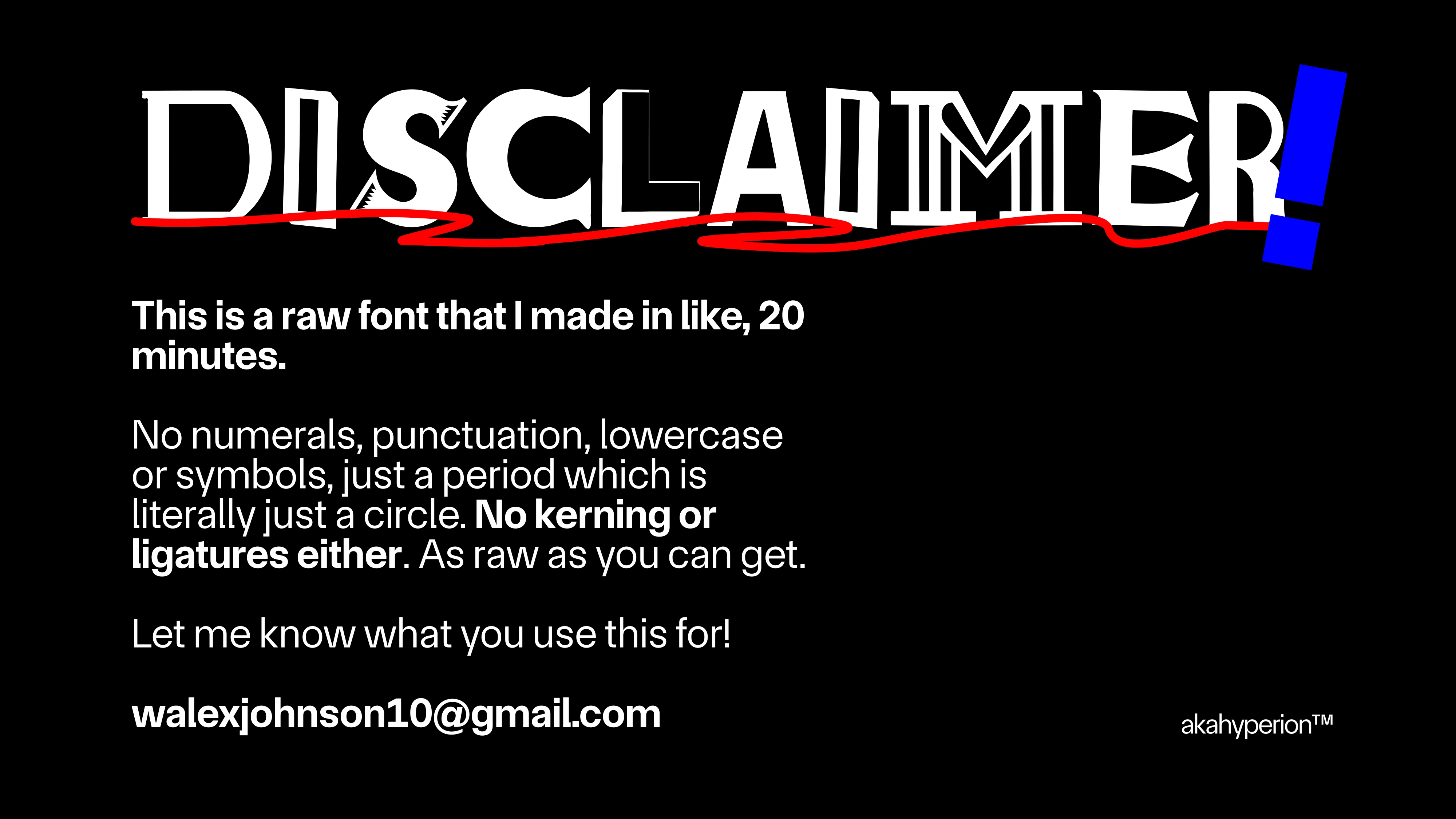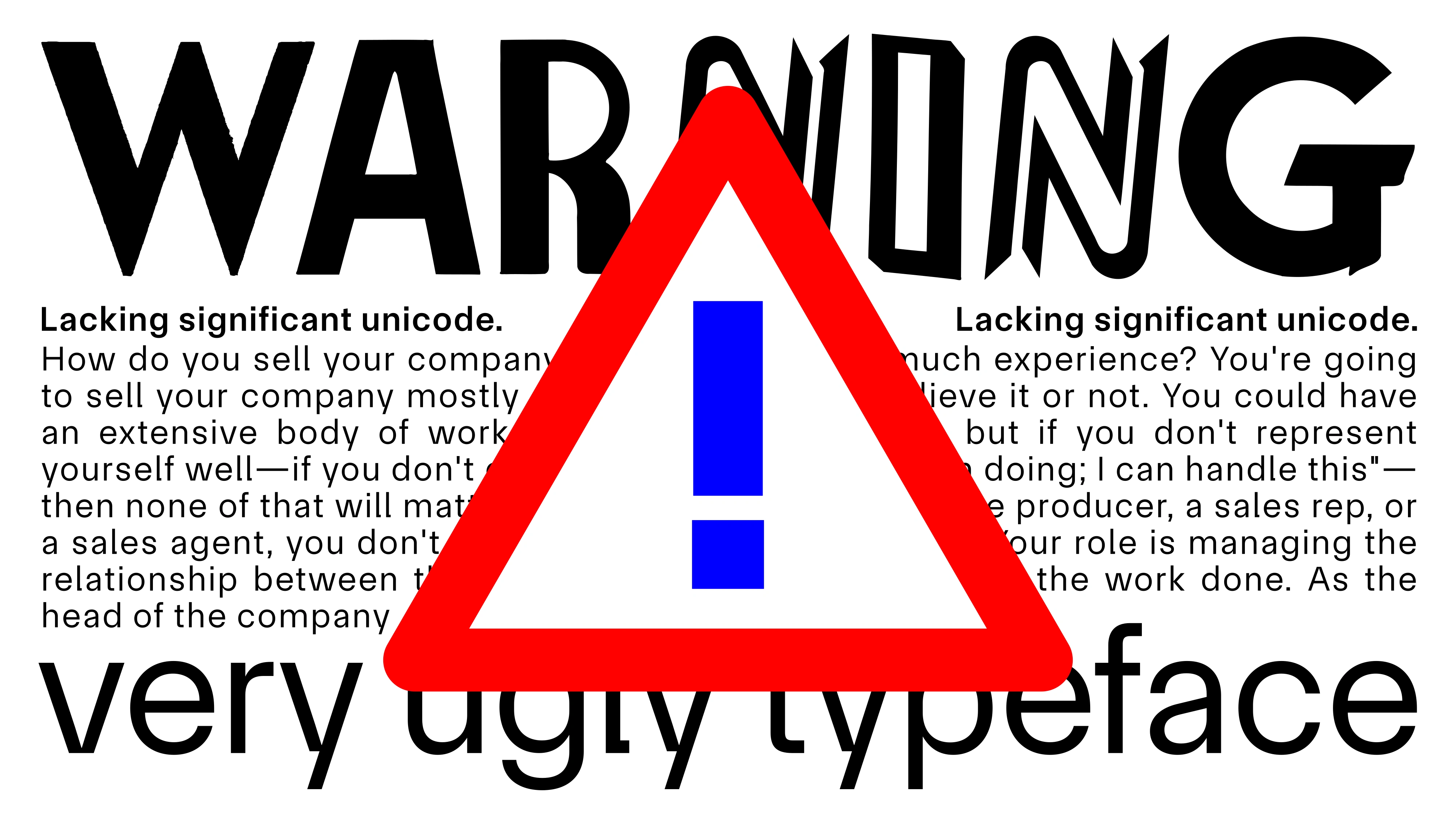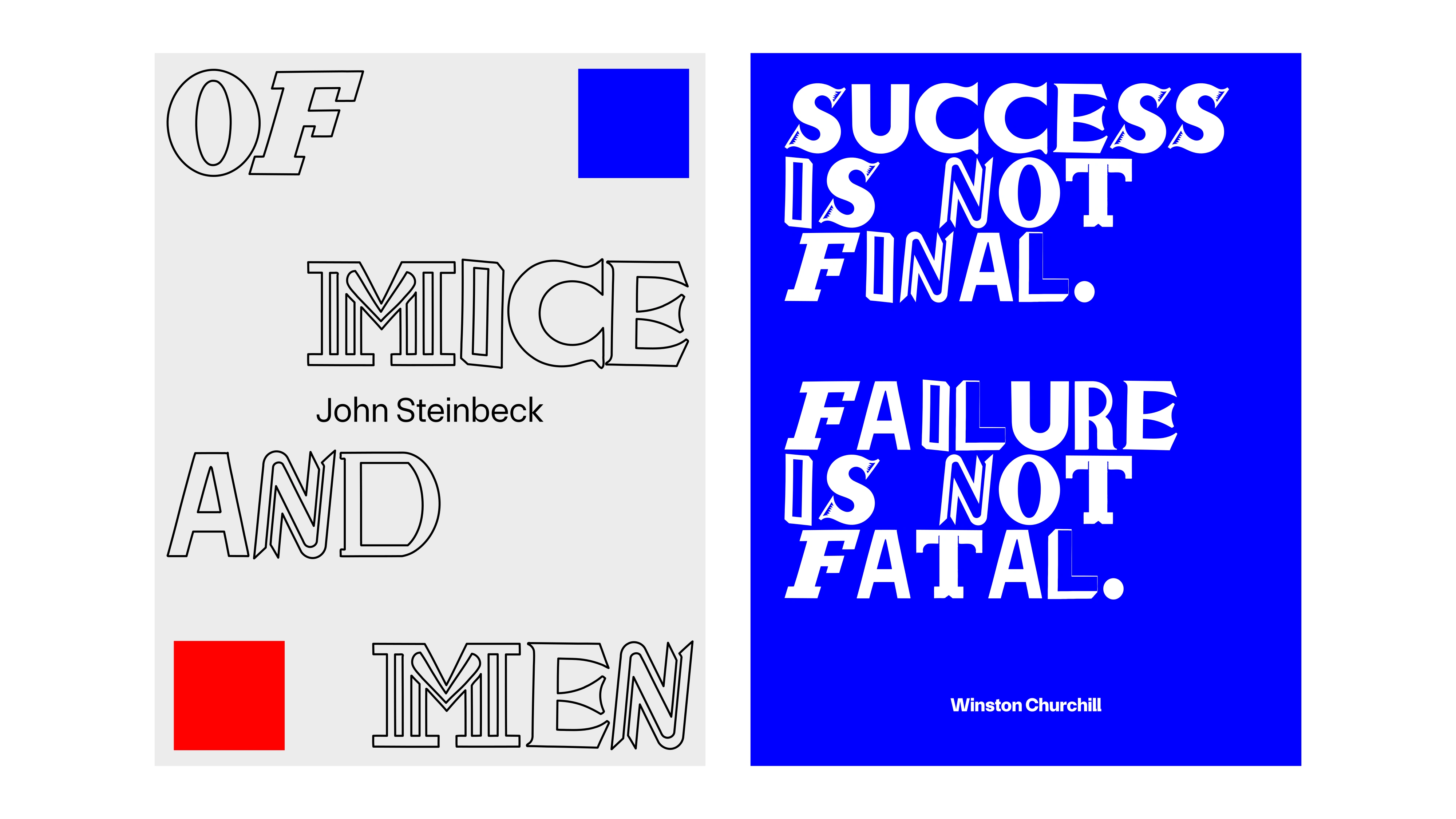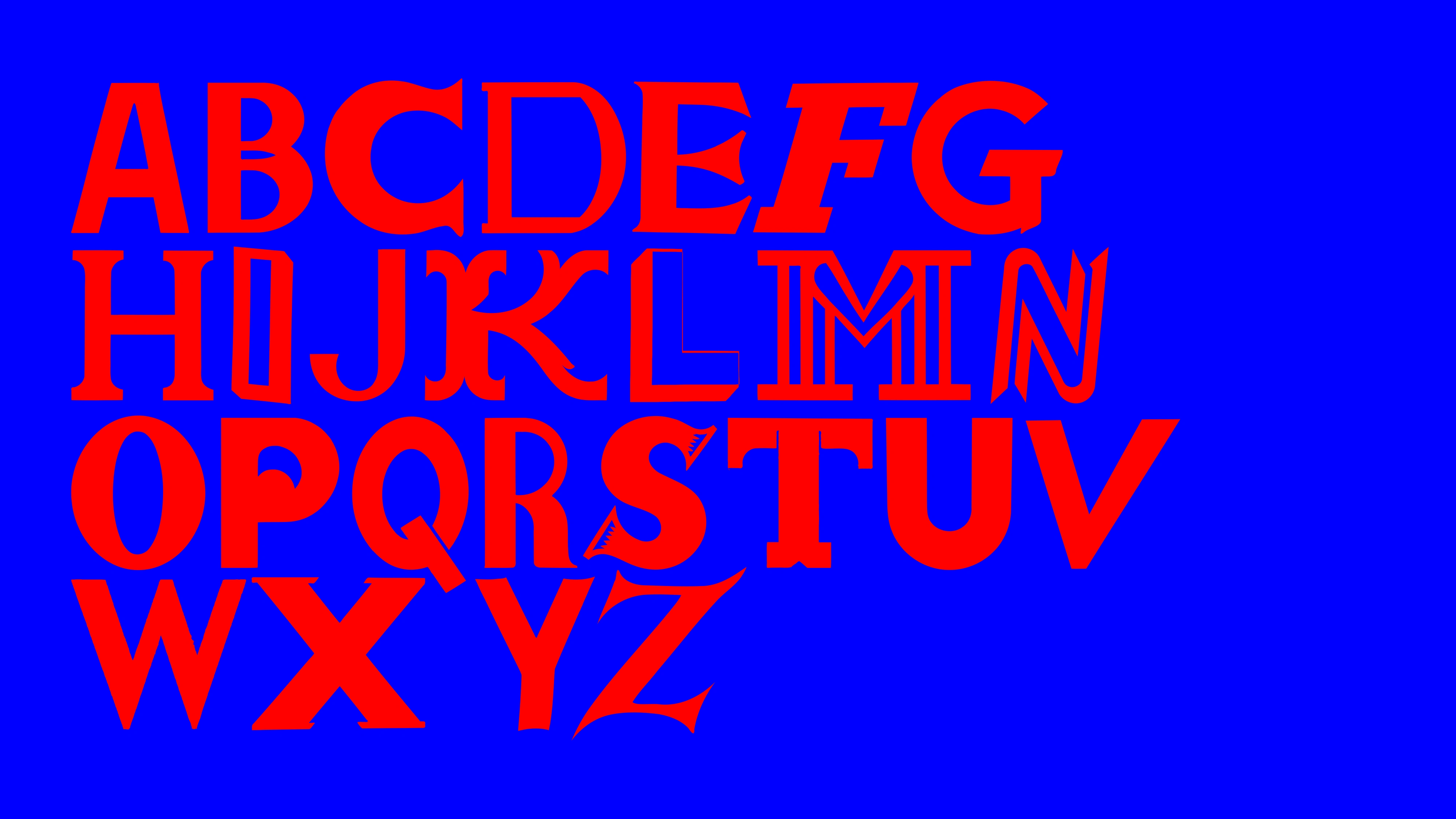
MOOT (free font)
Alex Johnson
Google's experimental GenType lab allows you to generate an alphabet out of anything.
So I decided to make my own alphabet, based on 1950's typography. I traced them out, scaled them, and turned it into a usable font.
Coincidentally, my first usable font!!!
I came across Google's experimental GenType lab and decided to make my own alphabet with AI.